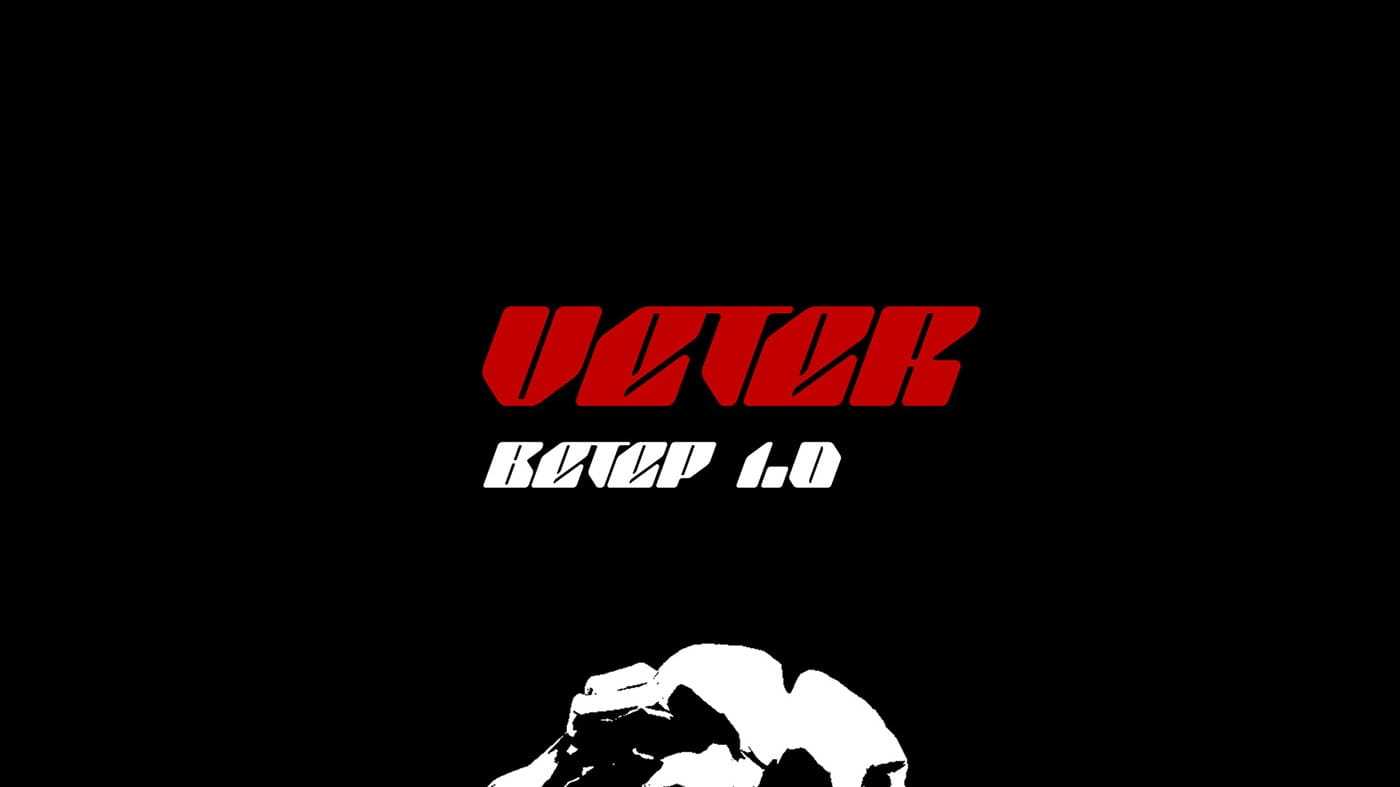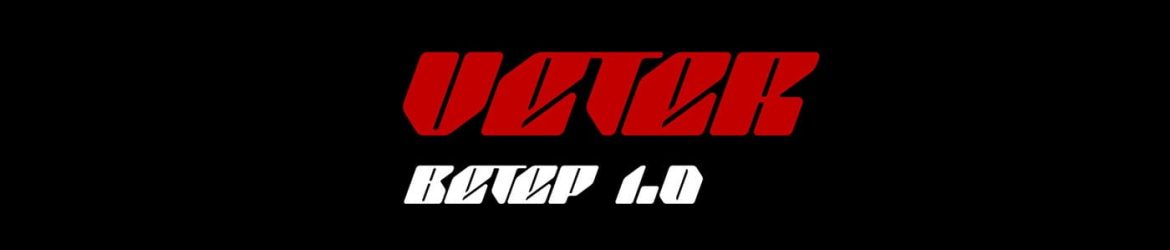
Download Veter font, a high-impact, futuristic display typeface built for speed, strength, and motion with its aggressive slant, razor-sharp angles, and condensed forms.
Designer: Tim Kasimoff